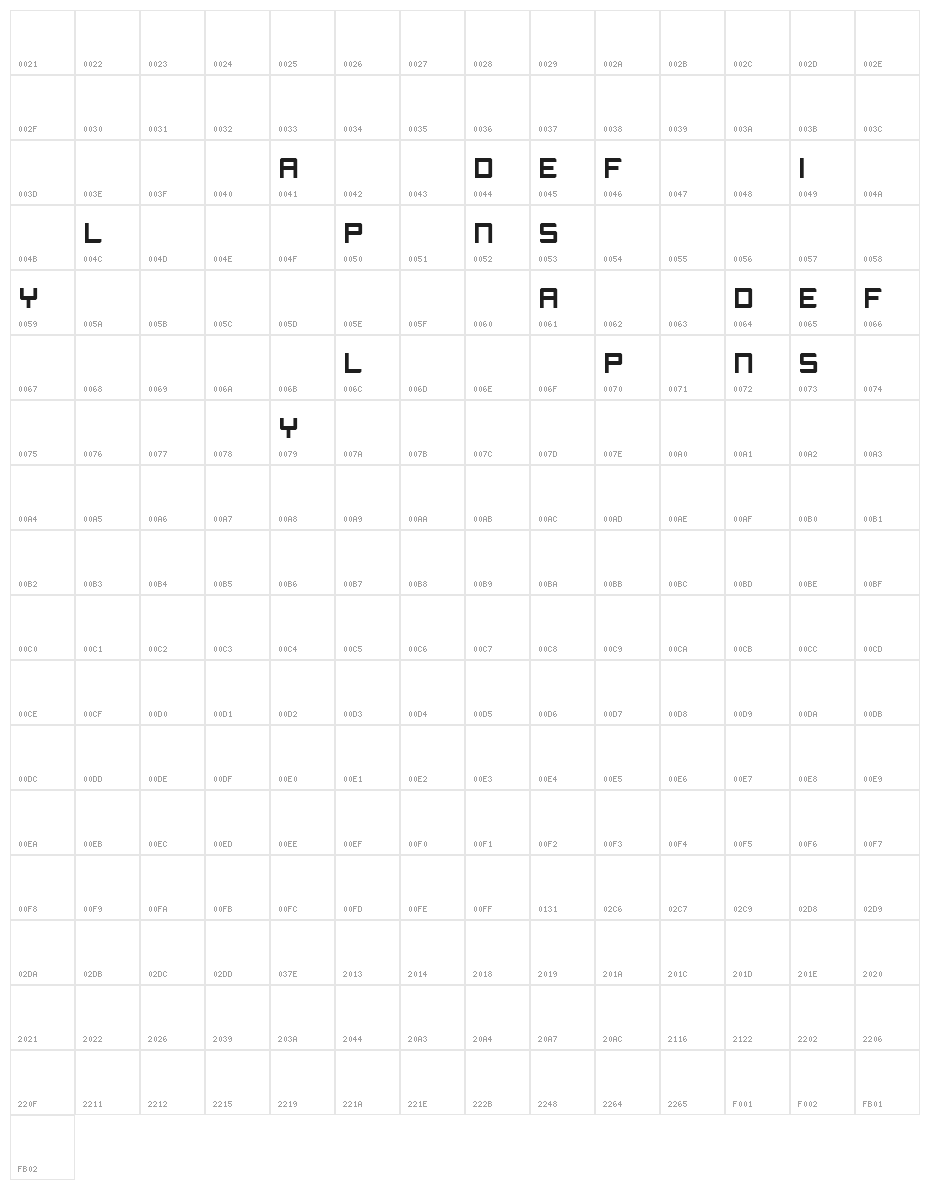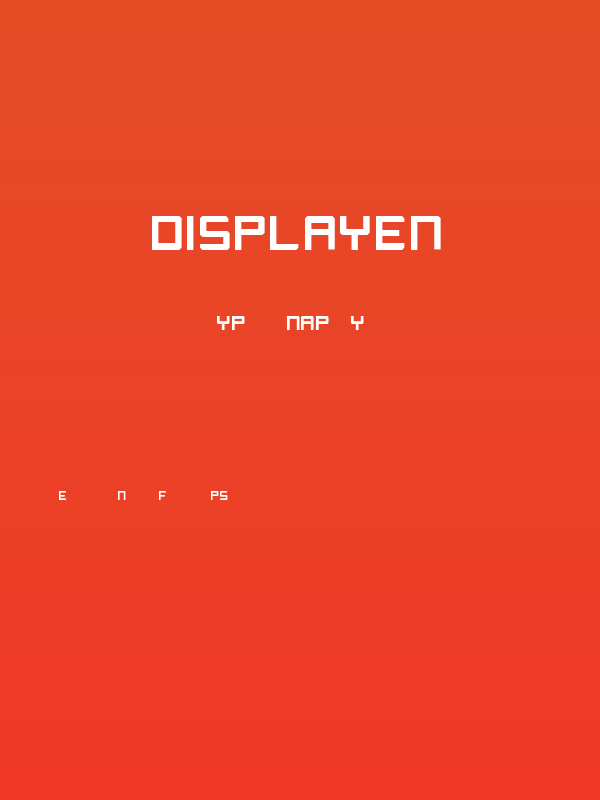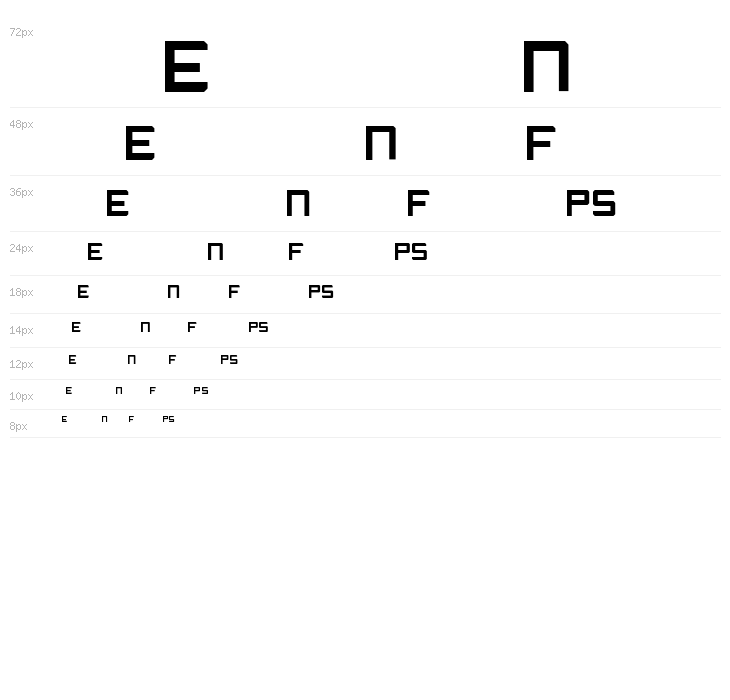
Displayer Font
| Caso d'uso | Logos, Headlines, Digital interfaces |
| Progetti proposti | Ideal for tech branding, digital interfaces, video game titles, and sci-fi themed projects. |